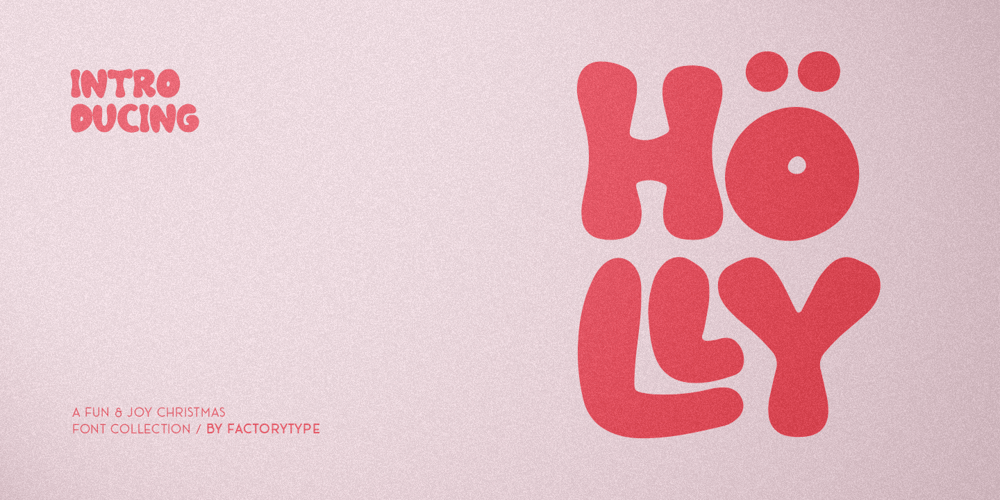
Holly Font Family was designed by Wahyu Rahmawan and published by Factory738. Holly contains 10 styles and family package options. It’s time to celebrate when the air turns crisply chilly and we start planning festive projects for Christmas.Holly, a modern and fun Christmas typeface perfect for sleigh rides and carol singing. All of the necessary elements, such as numbers, punctuation, and multilingual letters, are included. Whatever your imagination conjures up, these ligatures will come in handy. 5 Styles (Dancer, Comet, Cupid, Donner, Rudolph) Basic Latin A-Z and a-z Numerals & Punctuation Stylistic Ligatures Multilingual Support for ä ö ü Ä Ö Ü … Free updates and feature additions Thanks for looking, and I hope you enjoy it.